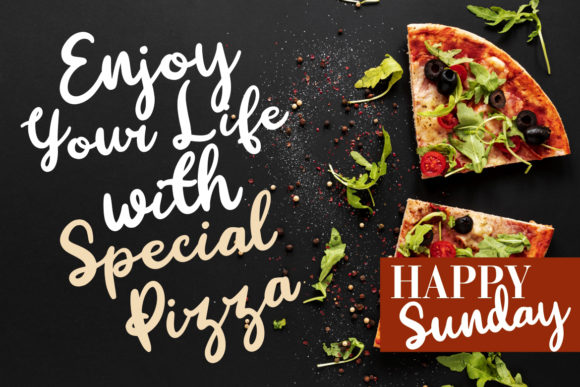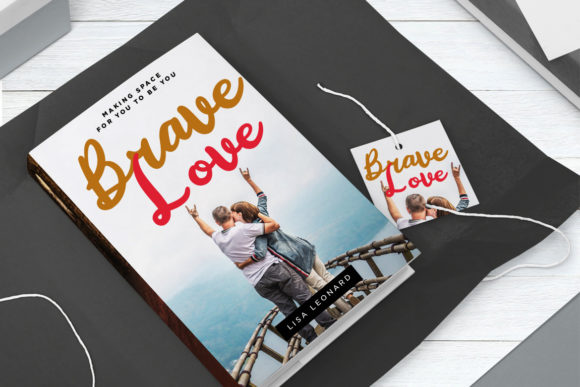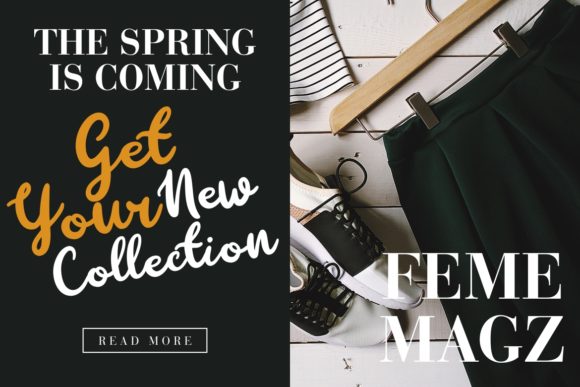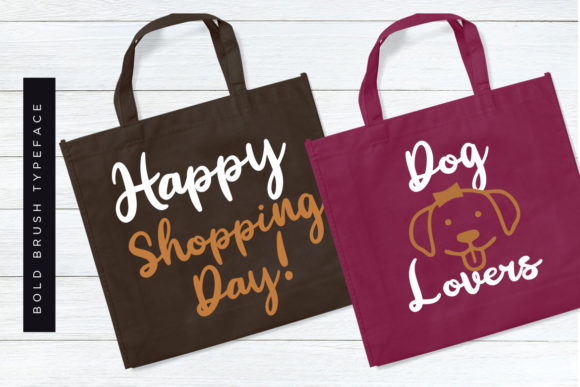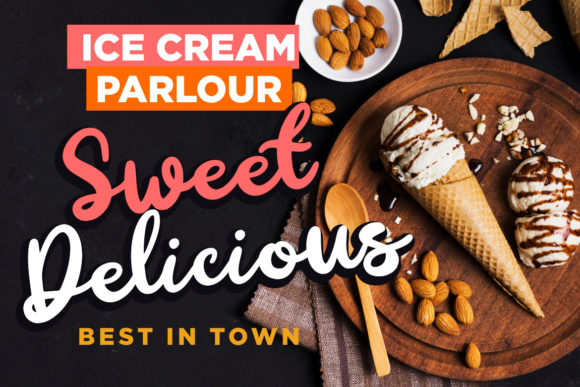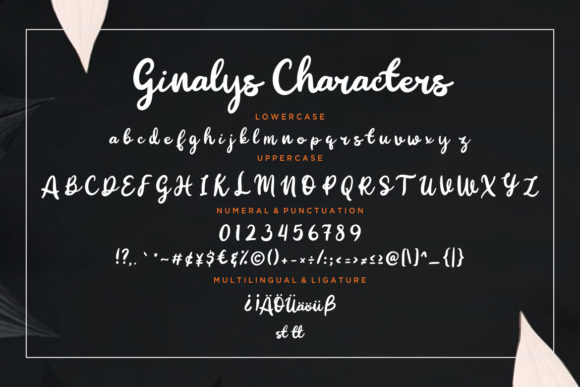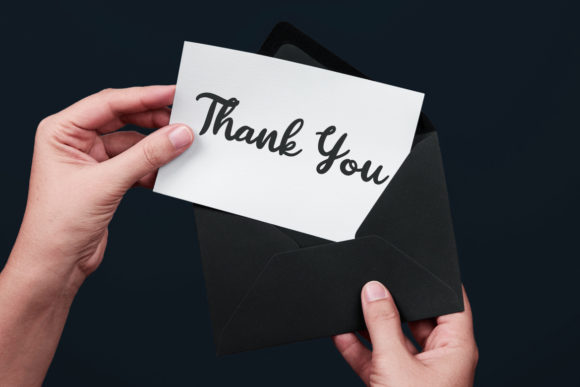
HomeScript FontsGinalys Font Script Fonts Ginalys Font FacebookXPinterestWhatsApp Ginalys Font Poster 2 Ginalys Font Poster 3 Ginalys Font Poster 4 Ginalys Font Poster 5 Ginalys Font Poster 6 Ginalys Font Poster 7 Ginalys Font Poster 8 About Ginalys Font Ginalys is a bold and chunky script with smooth curves. Use it to add a unique charm to any design idea. DOWNLOAD NOW People also explored Arusher Font Chill Catarina Font Beautiful Dream Font Wonderful Dream Font Cagile Font Saphira Script Celinea Font Heather Red Bella Canvas 3001 Mockup 468 0 TagsGinalys Font Previous articleDettachment FontNext articleMastery Font LEAVE A REPLY Cancel reply Comment: Please enter your comment! Name:* Please enter your name here Email:* You have entered an incorrect email address! Please enter your email address here Website: Save my name, email, and website in this browser for the next time I comment. Personal Use Free Banana Valentine Personal Use Free Read more about this font Handayani Personal Use Free Read more about this font Jelly Fish Personal Use Free Read more about this font Butter Belly Personal Use Free Read more about this font BLOG Top 10 Handwritten Fonts That Elevate Your Designs Top 10 Handwritten Fonts That Will Elevate Your Designs Handwritten fonts bring a warm, personal touch to every creative project. Whether you're designing logos, invitations,... Using Fonts in Digital Marketing: Tips to Strengthen Your Brand Identity Transform Your Website: Elevate Your Typography with 7 Best Web Font Generators Exploring Font Trends